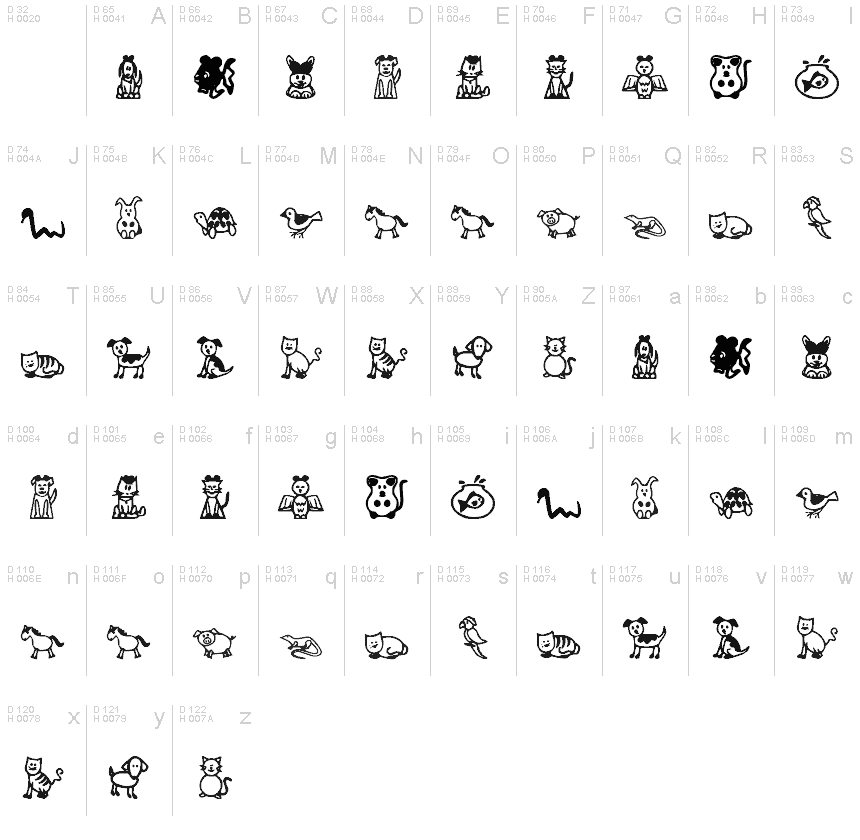
"Pet Animals" by D3 is a charming dingbat font that showcases a delightful menagerie of whimsical animal illustrations. With its playful, cartoon-like style, this font exudes a lighthearted and endearing aesthetic, making it a versatile choice for a variety of design applications. From playful children's stationery to inviting pet-themed branding, the diverse set of animal characters within this font can lend a touch of warmth and personality to any project. Its quirky, expressive illustrations captivate the eye and evoke a sense of playfulness, making "Pet Animals" a captivating typographic tool for designers seeking to infuse their work with a touch of endearing, animal-inspired flair.
Potential use cases for this font include greeting cards, packaging designs, social media graphics, and educational materials. The varied animal icons can be employed as visual accents, decorative elements, or symbolic representations, adding a delightful and engaging dimension to the overall design.
Pet Animals